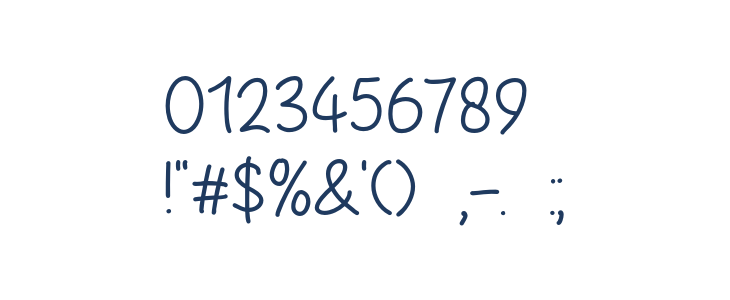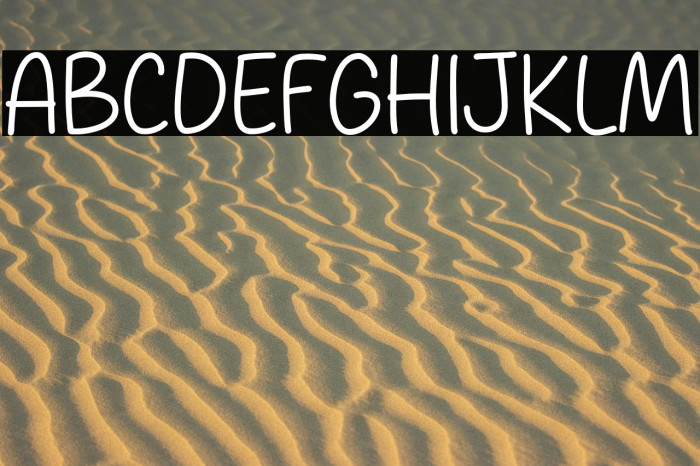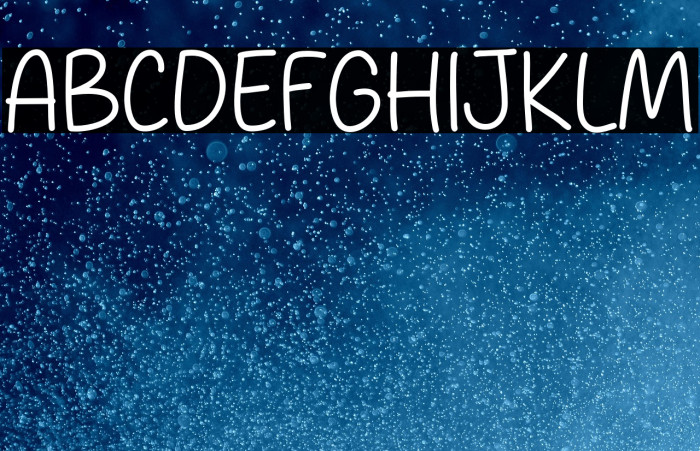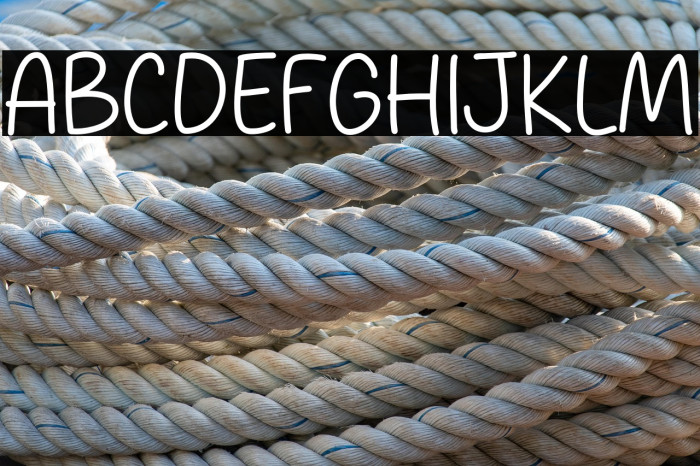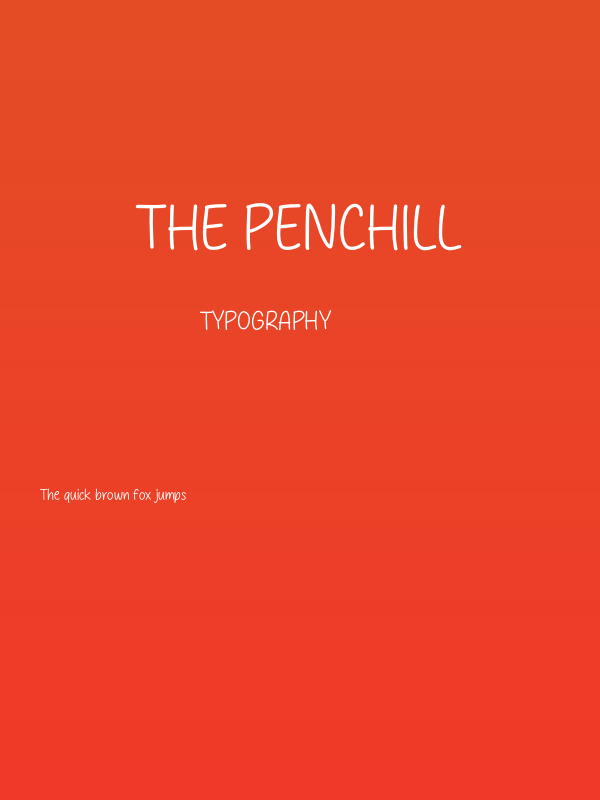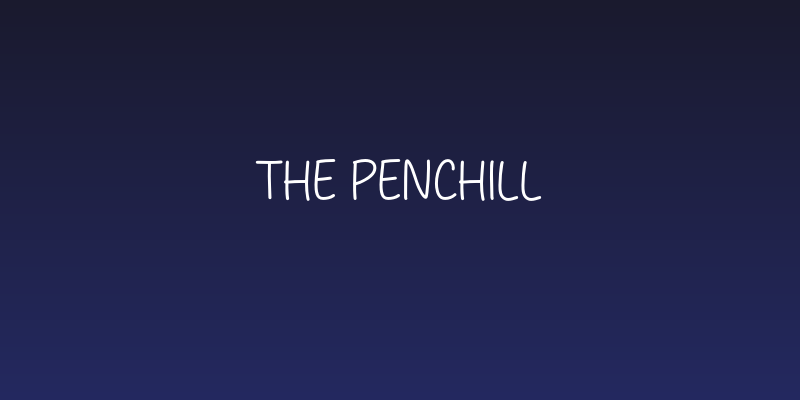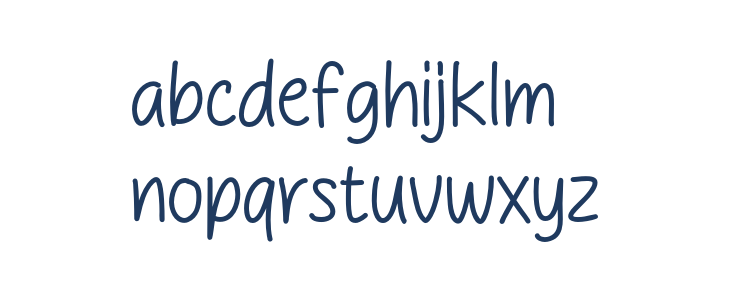
The Penchill Font
The Penchill Description
This font features a playful and casual handwritten style, characterized by smooth, rounded edges and a consistent stroke width. The letters are slightly irregular, giving it a friendly and approachable appearance. The uppercase and lowercase letters maintain a uniform height, contributing to its legibility. Numbers and special characters are designed to match the overall style, ensuring a cohesive look across all text elements. This font is ideal for projects that require a personal touch, such as invitations, greeting cards, or informal branding.
| Use Case | Headlines, Informal text, Branding |
| Proposed Projects | Ideal for invitations, greeting cards, children's books, and informal branding. |